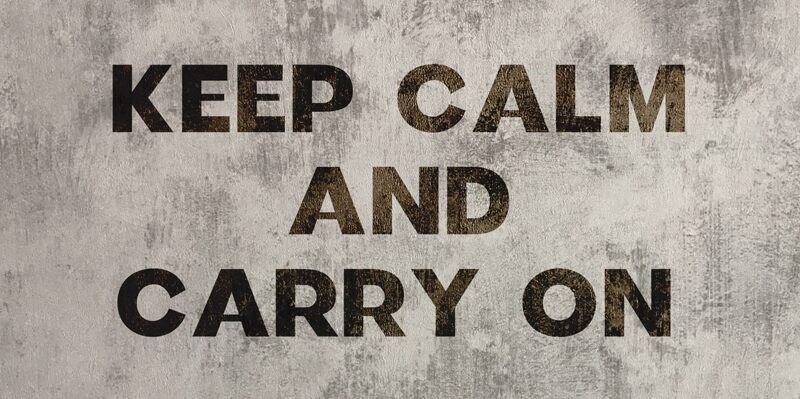
Arcens Display is a captivating sans serif font designed by 4RM Font. Its bold weight and semi-expanded width make it the perfect choice for projects that require a modern, attention-grabbing vibe. Whether you’re designing a logo, creating unique branding materials, or crafting eye-catching headlines and titles, Arcens Display has got you covered. This versatile font typeface is suitable for various projects such as digital marketing campaigns, editorial design, product packaging design, and more! With its clean lines and sleek aesthetic, Arcens Display is sure to elevate your designs to the next level.
Arcens font consicst of 4 styles, namely:
- Regular
- Italic
- Display regular
- Display italic
Arcens Display